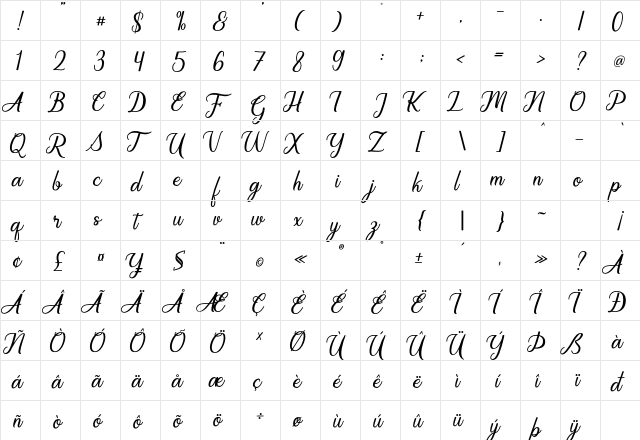
Regalhisa Regular Font Preview
Regalhisa Regular
Regalhisa Regular Font Details
Design Context for Regalhisa Typeface
Regalhisa takes a measured approach to typography — its balanced proportions and neutral character make it a reliable workhorse for both digital and print work.